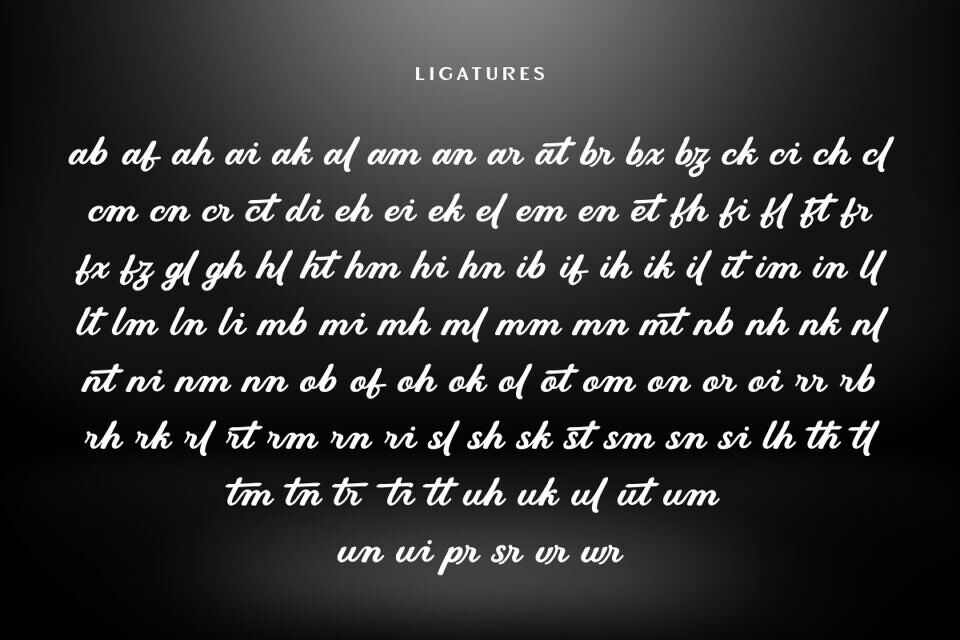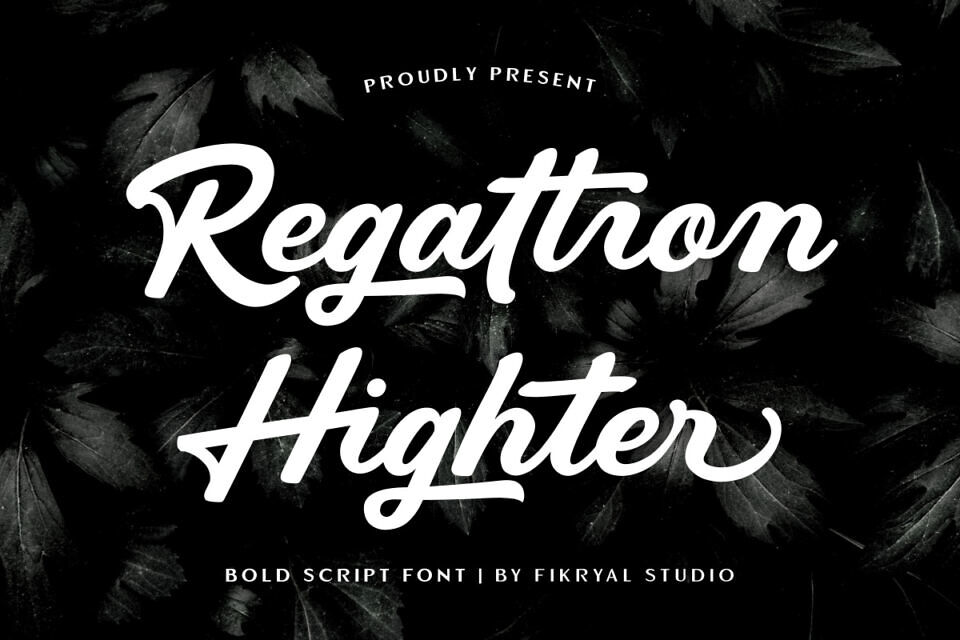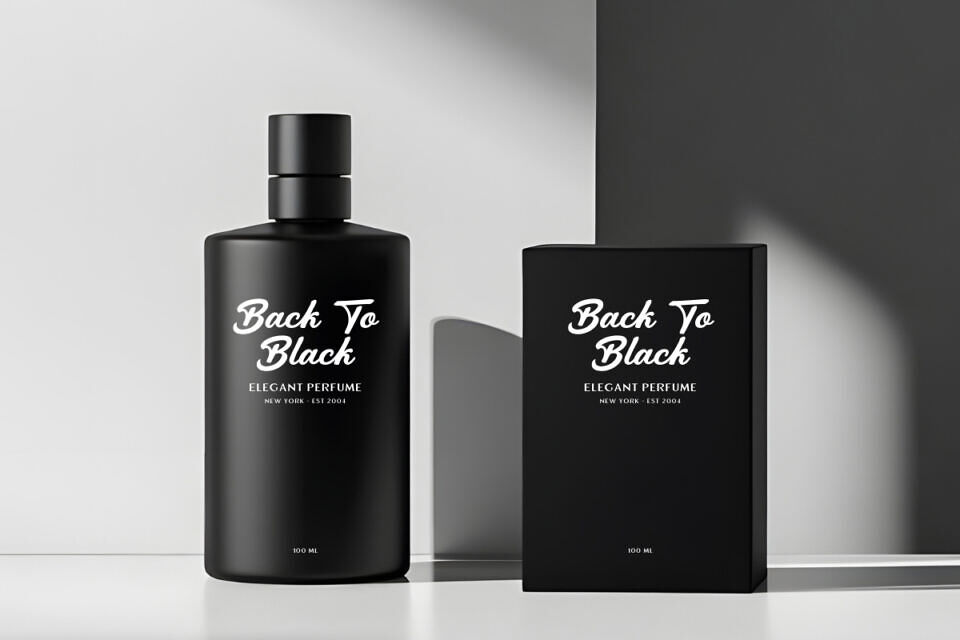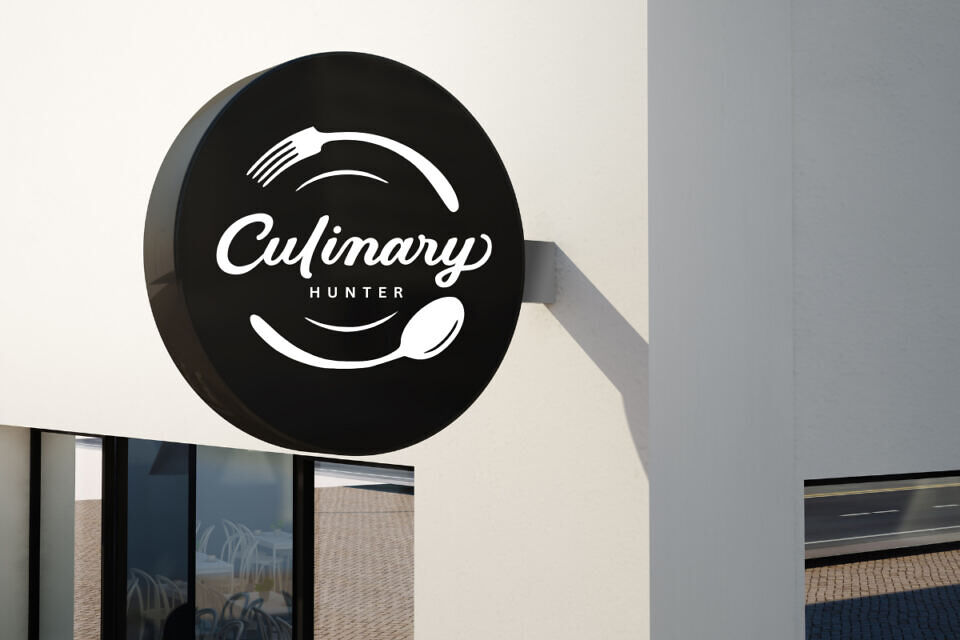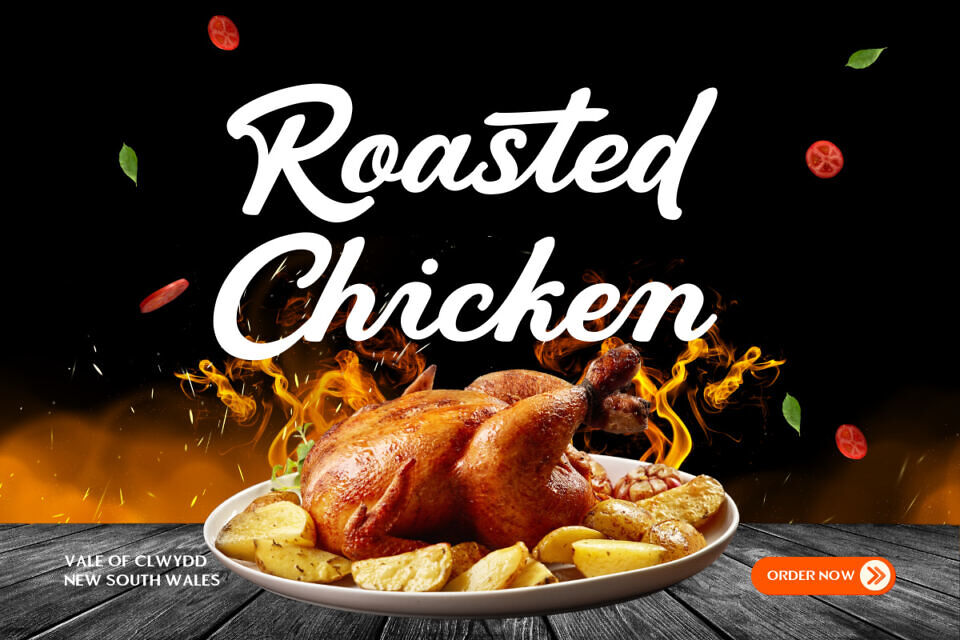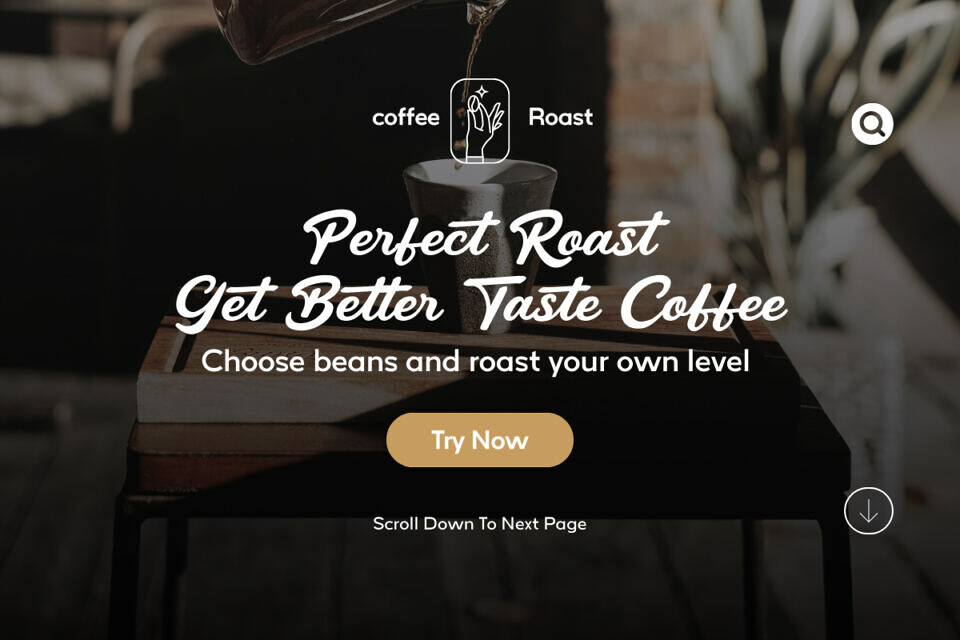
Regaltion Highter Font
Regaltion Highter is a bold and expressive script font designed to bring elegance, strength, and personality into your typography. Featuring thick strokes and smooth flowing curves, this font creates a confident handwritten style that stands out beautifully in both modern and classic design projects.
Whether you are creating logos, branding identities, product packaging, social media graphics, or wedding designs, Regaltion Highter delivers a bold yet elegant script appearance that enhances visual impact. Its combination of bold lettering, smooth curves, and rich ligature features makes this font perfect for designers who want to achieve a stylish, professional, and high-end look.